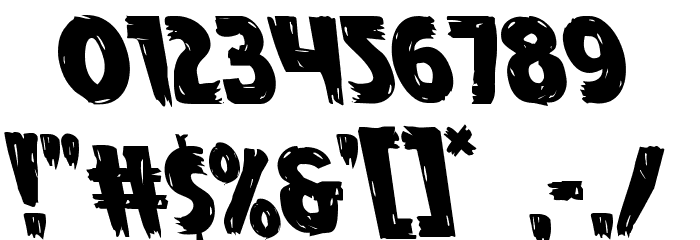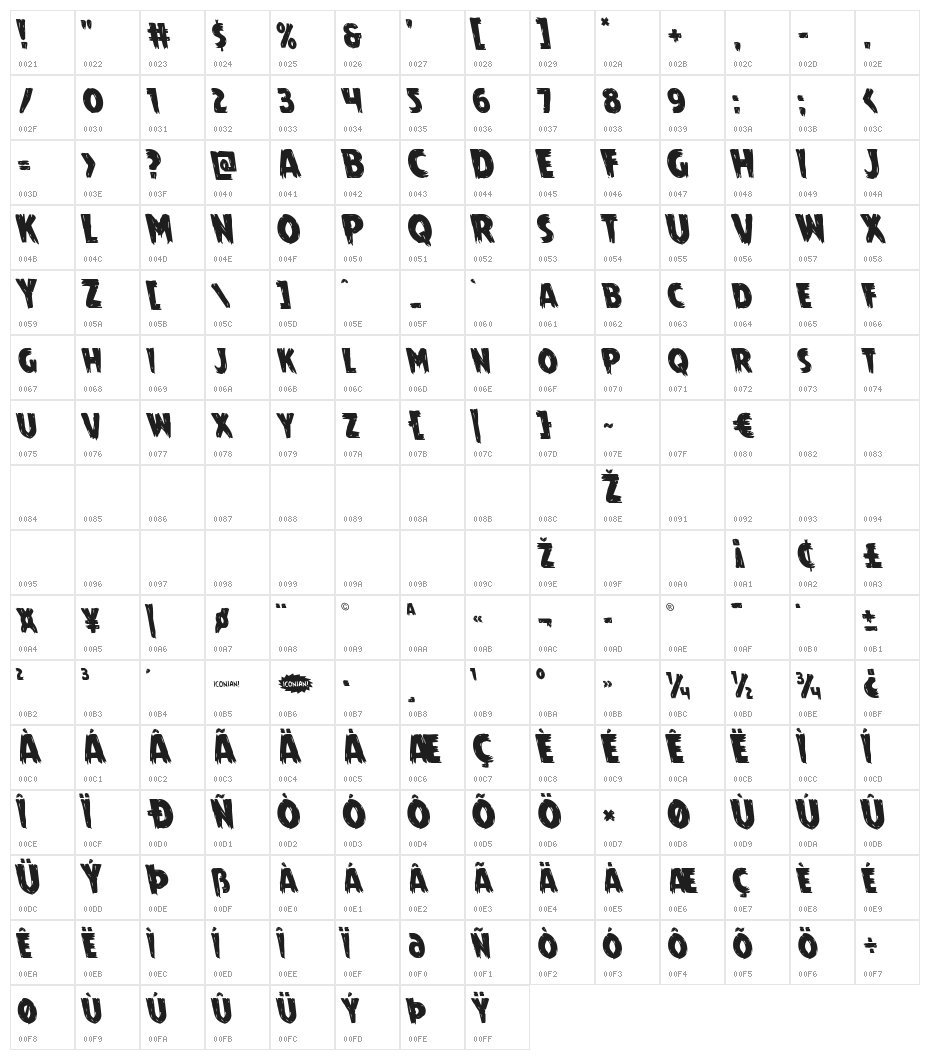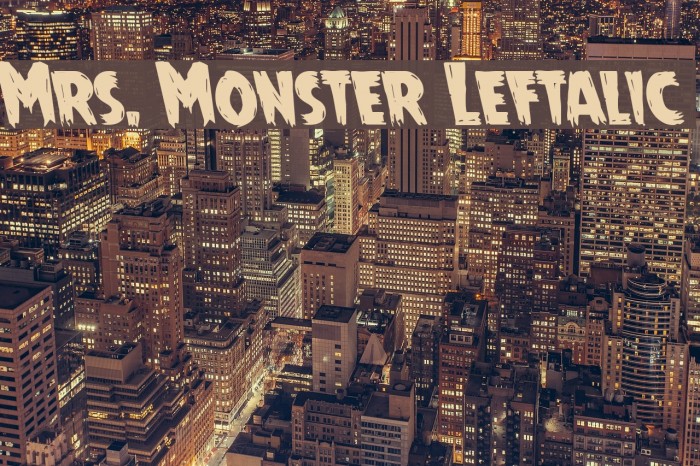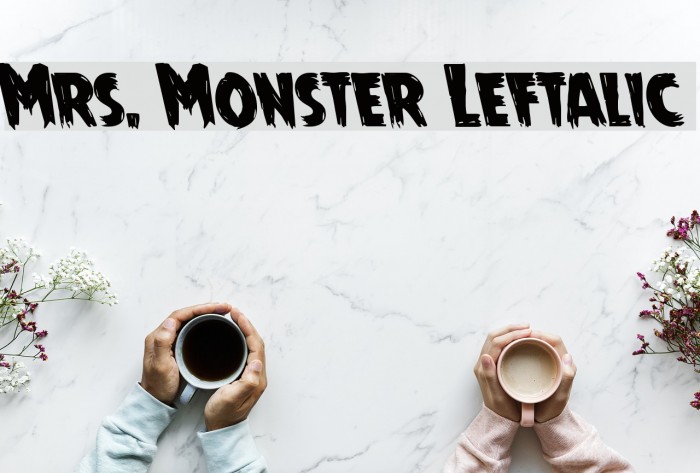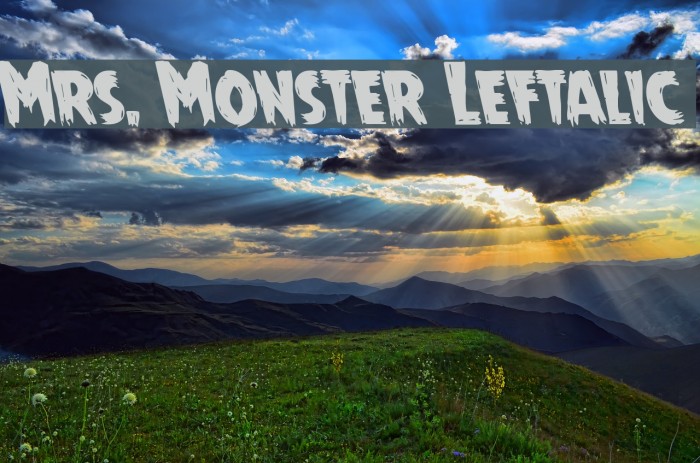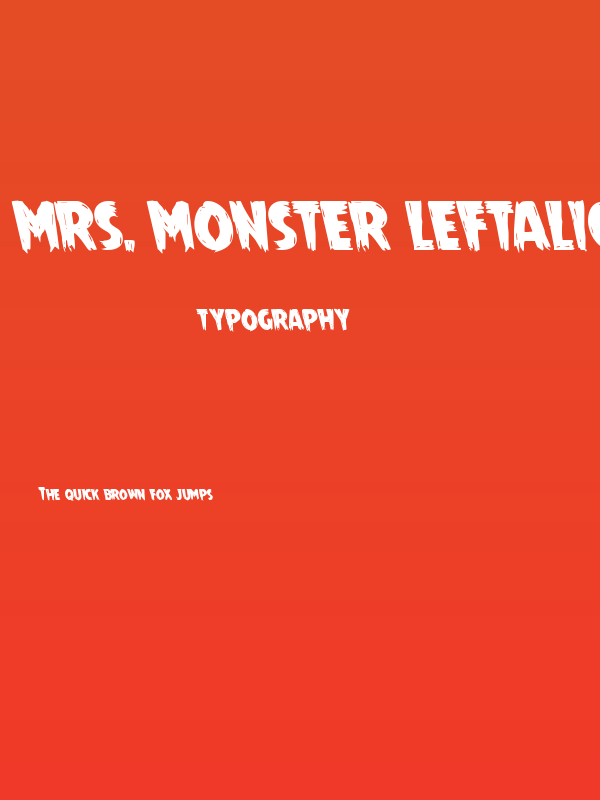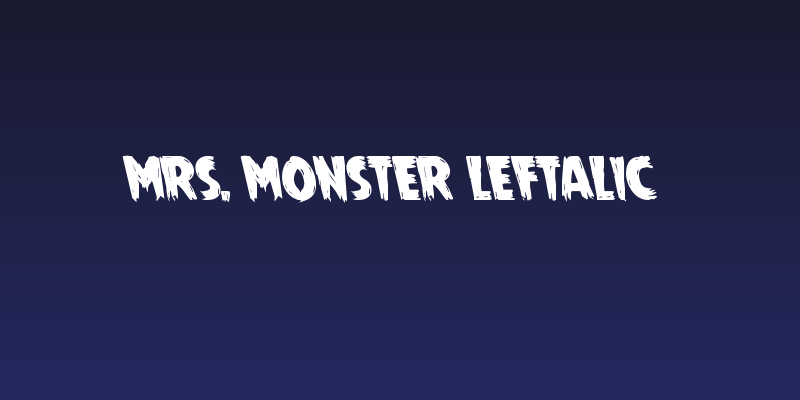
Mrs. Monster Leftalic Font
Mrs. Monster Leftalic Description
This font features a bold and jagged design, reminiscent of horror or monster-themed aesthetics. The characters have an irregular, distressed appearance, with rough edges and a dynamic, energetic style. The uppercase and lowercase letters maintain a consistent theme, with each character appearing as if it has been clawed or torn. The numbers and special characters follow the same design principles, ensuring a cohesive look throughout. This font is perfect for projects that require a dramatic and eye-catching typeface, such as Halloween-themed designs, posters, or any creative work that aims to evoke a sense of thrill or excitement.